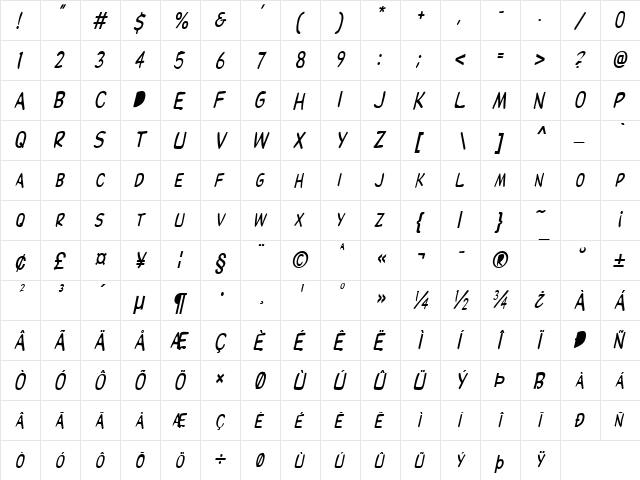
Elizabeth-Condensed Bold Italic Font Preview
Design Context for Elizabeth-Condensed Typeface
Elizabeth-Condensed is a composed and adaptable typeface that performs quietly and consistently across a wide range of design contexts. The slanted form adds forward momentum and visual energy. The heavy weight commands attention and anchors typographic hierarchies. Its narrow stance lets it pack a punch even in space-constrained designs.